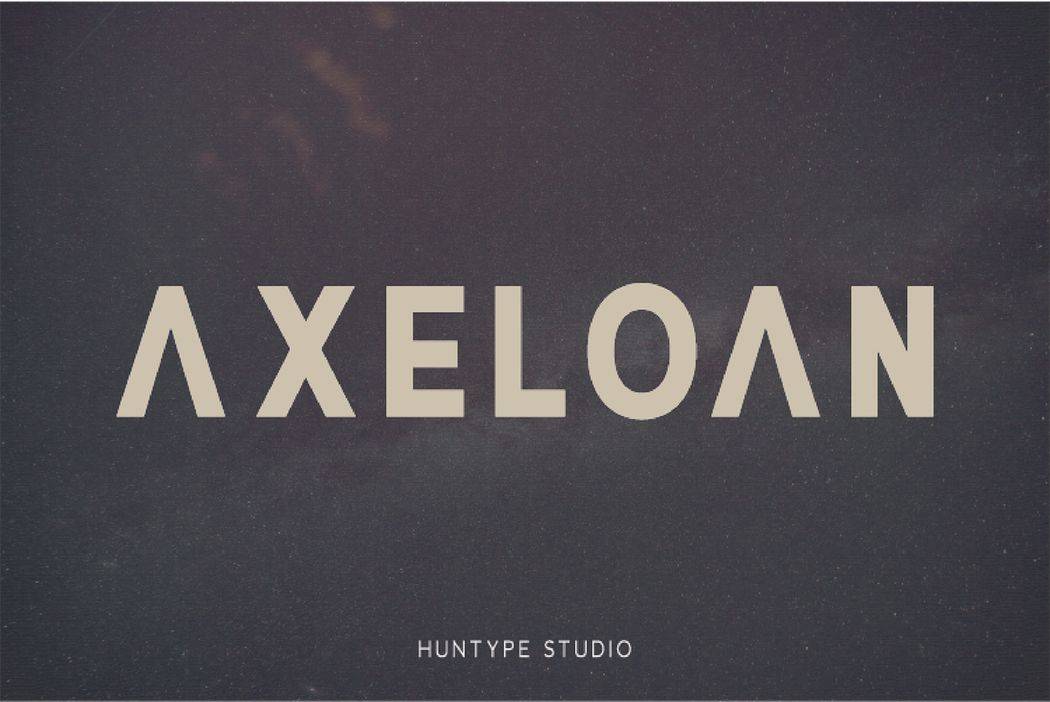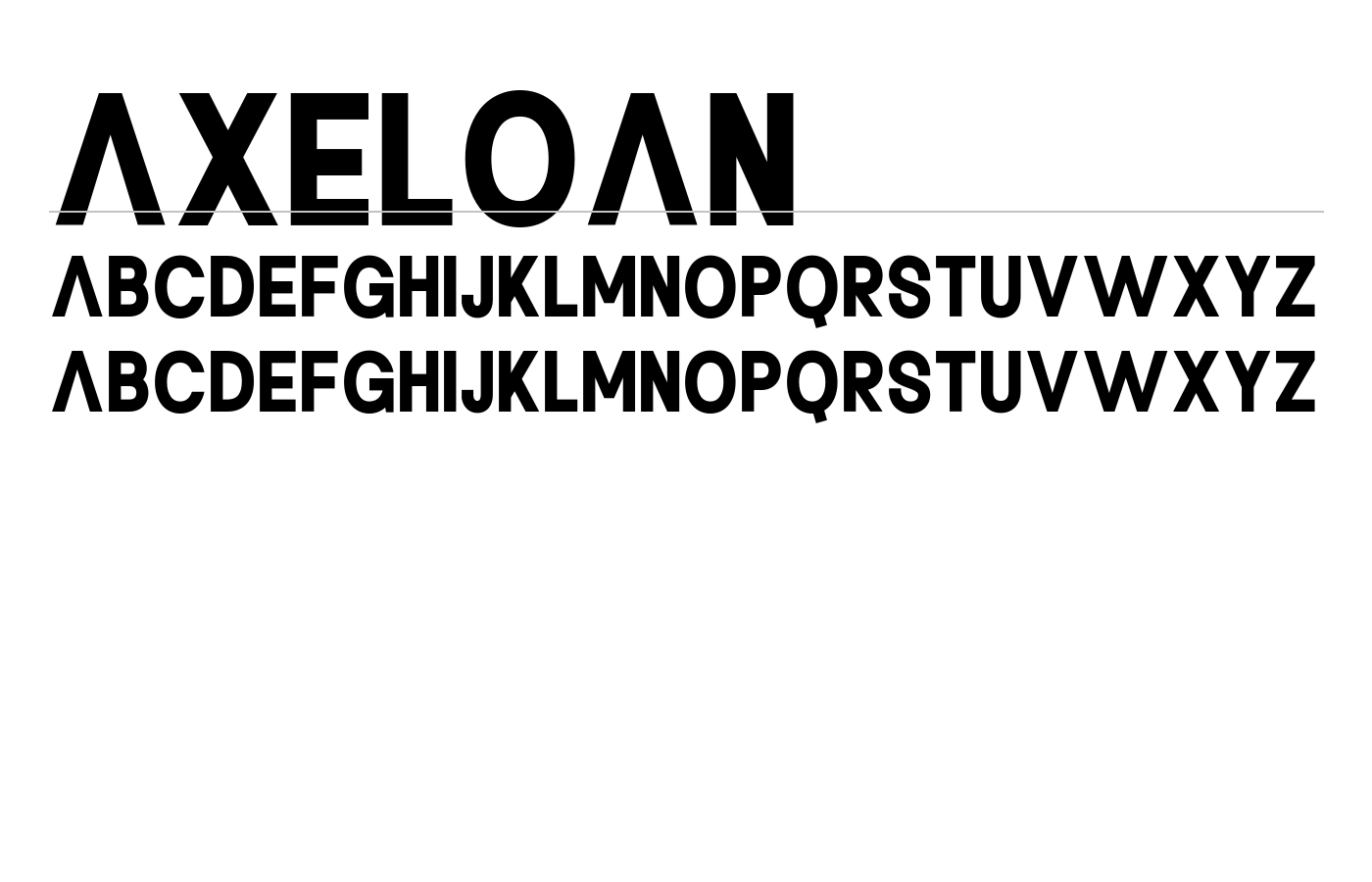
Axeloan is a bold, geometric sans serif font with strong, sharp angles that give it a futuristic and dynamic feel. Its condensed width and high x-height make it ideal for impactful headlines and branding where space is limited but presence is key. This font works well for modern, tech-driven brands or editorial designs seeking a confident, contemporary look.
Axeloan Font
About Axeloan Font